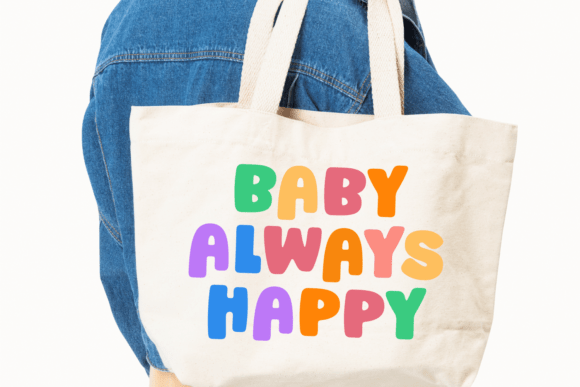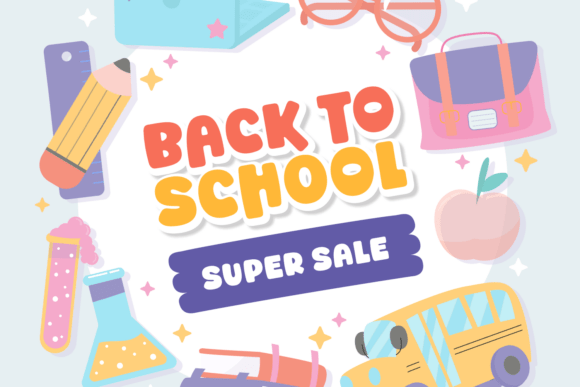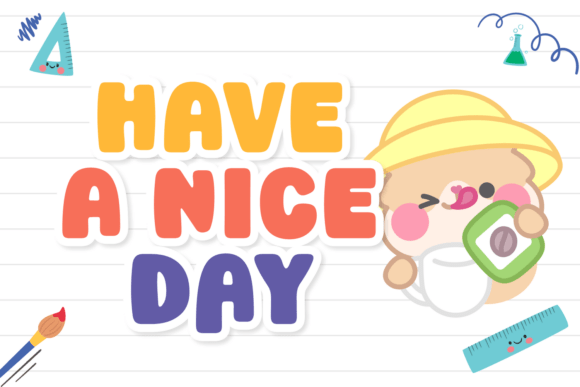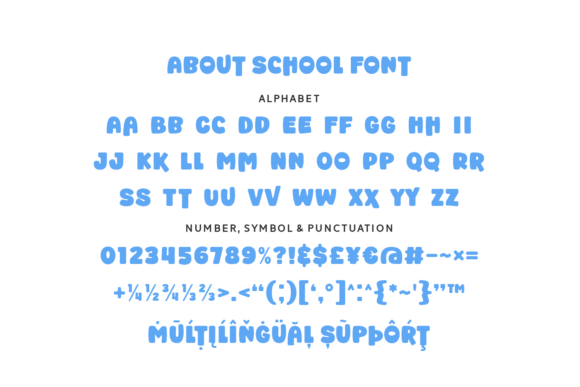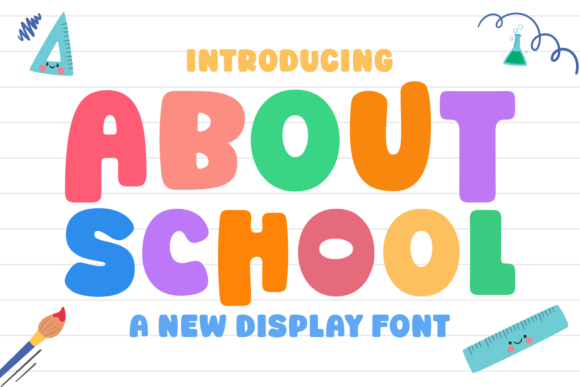
About School Font: A Joyful Typeface for Creative Projects
Are you looking for a font that can add a burst of joyful energy to your projects? Look no further than the About School Font. This delightful typeface is designed to make any project feel approachable and fun, capturing the playful essence of youthful creativity with its soft, rounded edges and thick, bouncy letterforms.
The Unique Characteristics of About School Font
The About School Font stands out from other typefaces due to its unique balance of bold, bubble-like structure and approachable warmth. The font’s soft, rounded edges give it a friendly and inviting feel, while its thick, bouncy letterforms add a sense of energy and playfulness. This combination makes every word feel cheerful and energetic, perfect for projects that require a fun and youthful vibe.
Who Can Benefit from About School Font?
The About School Font is particularly beneficial for educators, children’s book authors, and merchandise creators. Educators can use this font to create engaging and interactive classroom materials, such as posters, worksheets, and activity sheets. Children’s book authors can use it to add a playful touch to their stories, making them more appealing to young readers. Merchandise creators can use the font to design fun and eye-catching products, such as tote bags, stickers, and t-shirts.
Using About School Font for Creative Projects
The About School Font is versatile and can be used for a wide range of creative projects. Here are a few ideas to get you started:
- Posters and Flyers: Create eye-catching posters and flyers for school events, workshops, or conferences. The font’s bold and playful design makes it perfect for headlines and titles.
- Children’s Books: Add a touch of whimsy to your children’s book with the About School Font. The font’s soft and rounded edges make it easy to read and fun to look at.
- Merchandise: Design fun and colorful merchandise, such as tote bags, stickers, and t-shirts, using the About School Font. The font’s bold and playful design makes it perfect for creating eye-catching products.
- Classroom Materials: Create engaging and interactive classroom materials, such as worksheets, activity sheets, and certificates, using the About School Font.
Why Choose About School Font?
There are many reasons why you should choose the About School Font for your creative projects. Here are a few:
- Unique Design: The About School Font has a unique design that sets it apart from other typefaces. Its soft, rounded edges and thick, bouncy letterforms make it perfect for projects that require a fun and youthful vibe.
- Versatility: The font is versatile and can be used for a wide range of creative projects, from posters and flyers to children’s books and merchandise.
- Easy to Read: The font’s soft and rounded edges make it easy to read, even for young readers.
- Fun and Engaging: The About School Font is perfect for creating fun and engaging projects that require a playful touch.
Tips for Using About School Font
Here are a few tips for using the About School Font:
- Use it for Headlines: The About School Font is perfect for headlines and titles. Use it to add a bold and playful touch to your projects.
- Mix it with Other Fonts: The About School Font can be paired with other fonts to create a unique and interesting design. Try pairing it with a sans-serif font for a fun and modern look.
- Experiment with Colors: The About School Font looks great in bright and bold colors. Experiment with different colors to find the perfect combination for your project.
The About School Font is a joyful typeface that can add a burst of energy to any project. Its unique design, versatility, and ease of use make it perfect for educators, children’s book authors, and merchandise creators. With its soft, rounded edges and thick, bouncy letterforms, this font is sure to make your projects feel approachable and fun. So why not give it a try and see how it can bring a touch of youthful creativity to your work?